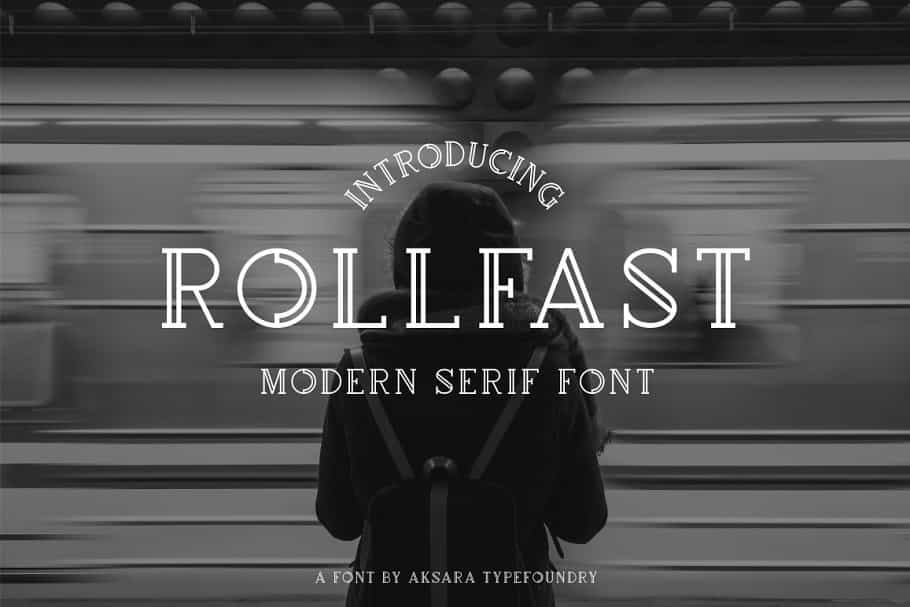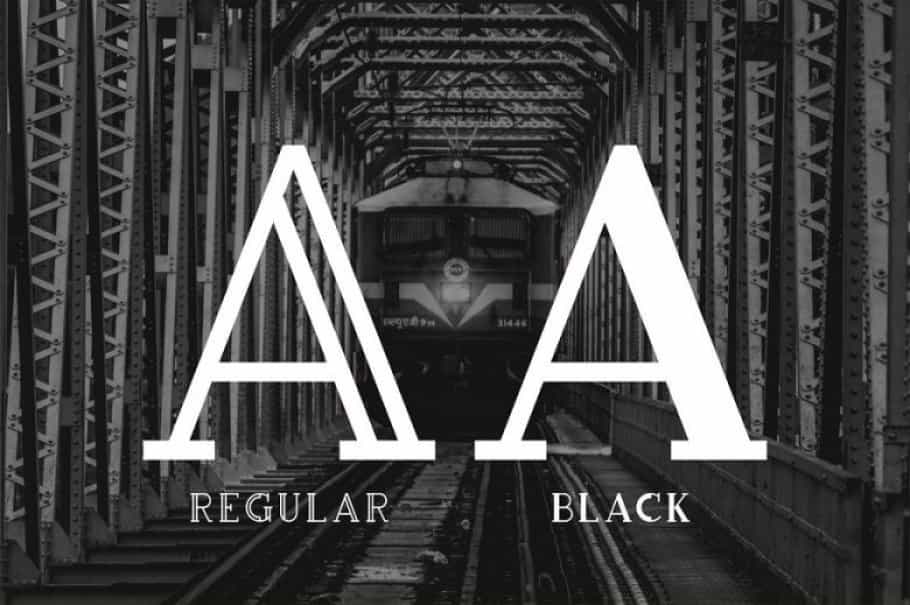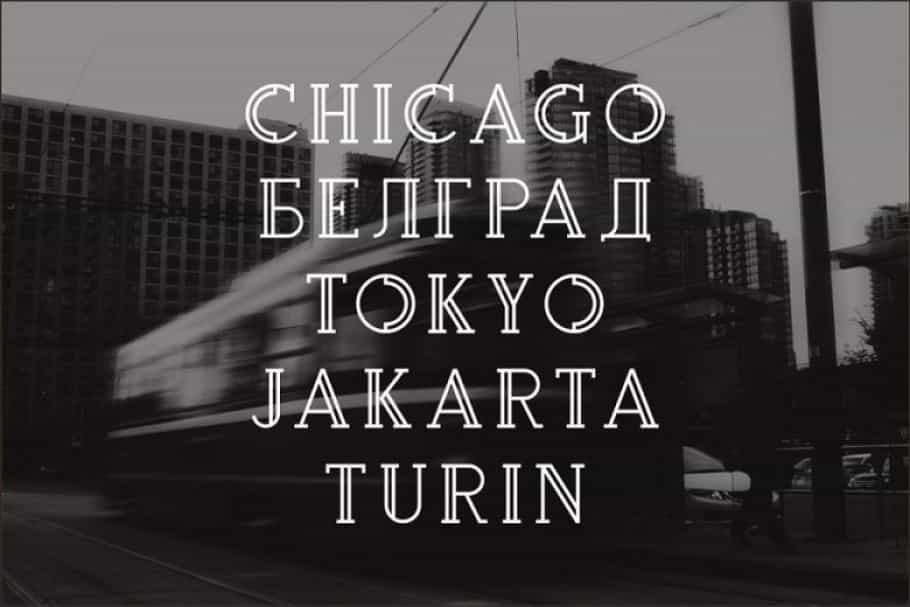
Introducing Rollfast! It is Aksara Typefoundry that has designed this font, which is a premium one and sold on creativemarket. But today it is free to download for everyone!Rollfast is a modern serif font that merges the classic style of typography with the contemporary one. Ideal for your word art typography, poster, labels, t shirt or modern logo.